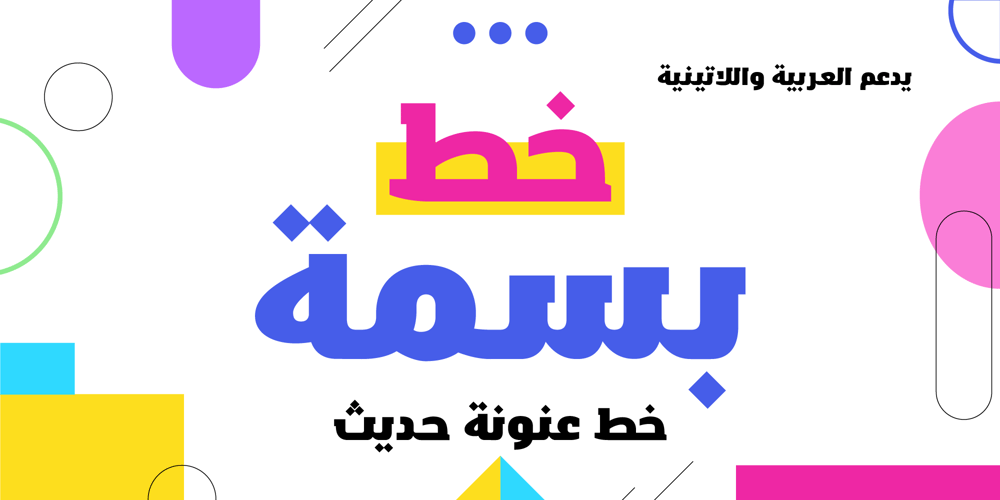
YR Basma Font Family was designed by Yusuf Refaiy and published by Alrefaiy. YR Basma contains 1 styles and family package options. YR Basma is a slab serif font that is renowned for its bold and distinctive appearance, which is designed to create a powerful impact. It is characterized by its strong and striking letterforms, with bold and thick strokes that give it an intense and impactful look. The font is also highly legible, with a focus on clear and easy-to-read letterforms that are meticulously crafted to balance visual weight and vertical alignment.YR Basma is ideal for a broad range of design projects that require a robust and striking visual presence, such as headlines, posters, packaging, and branding. It boasts a comprehensive set of glyphs, including both upper and lowercase letters, numerals, and symbols, making it highly versatile and adaptable to diverse design needs.YR Basma font offers a bold and commanding aesthetic, while maintaining excellent legibility and clarity of letterforms. Its powerful design makes it an excellent choice for various design projects where a strong and dominant visual presence is desired.